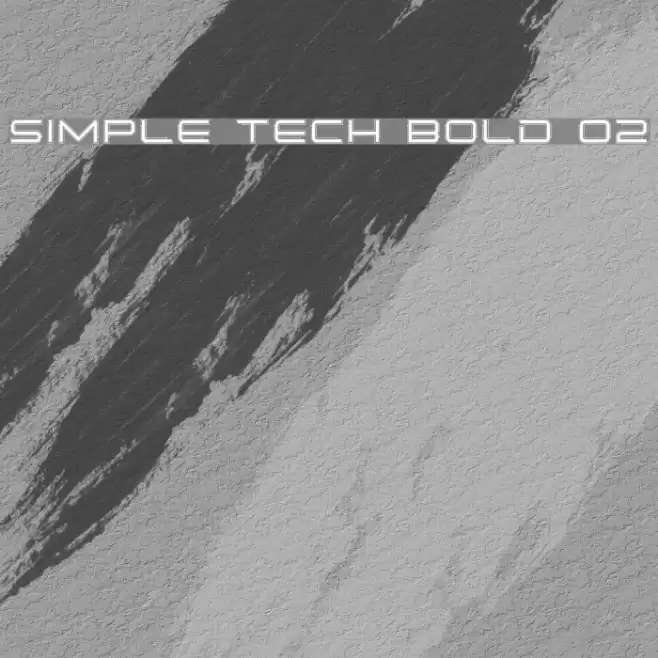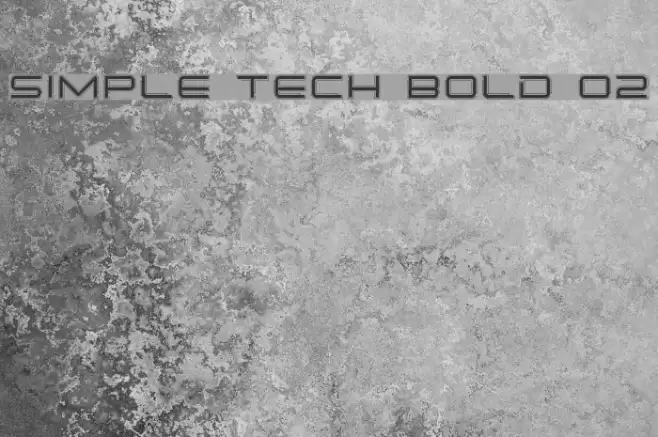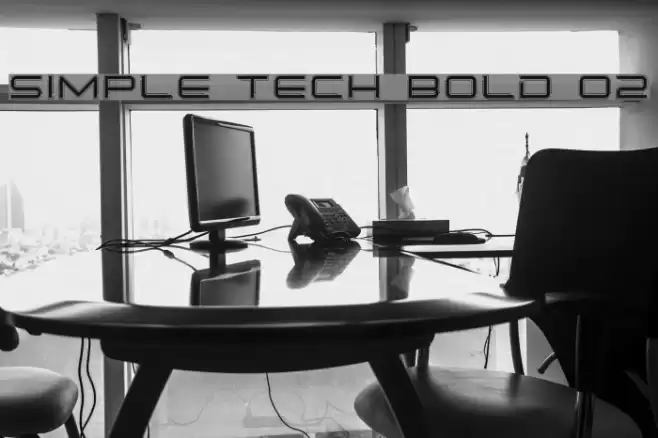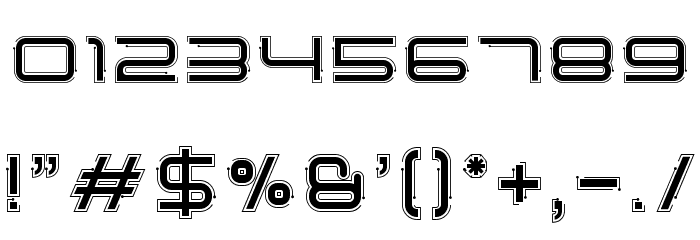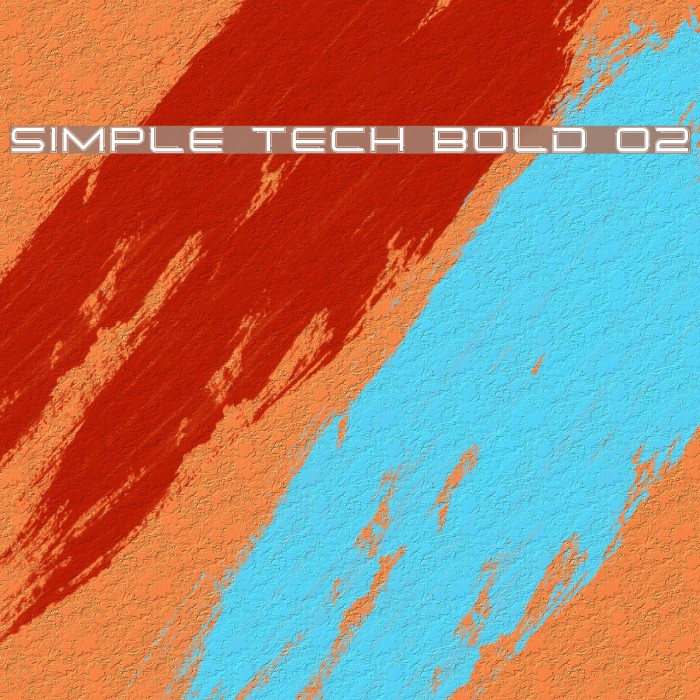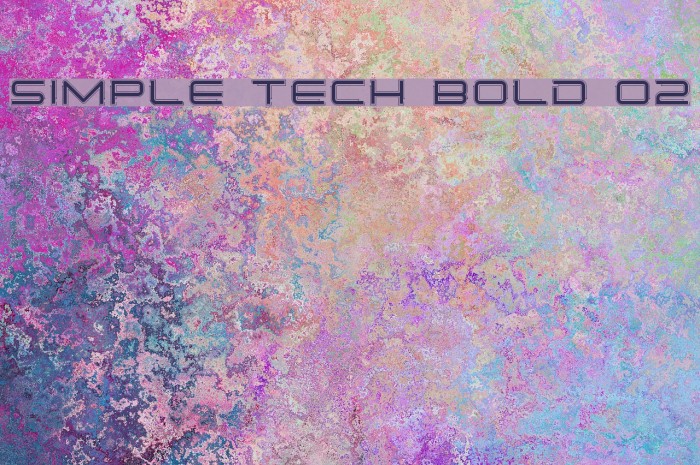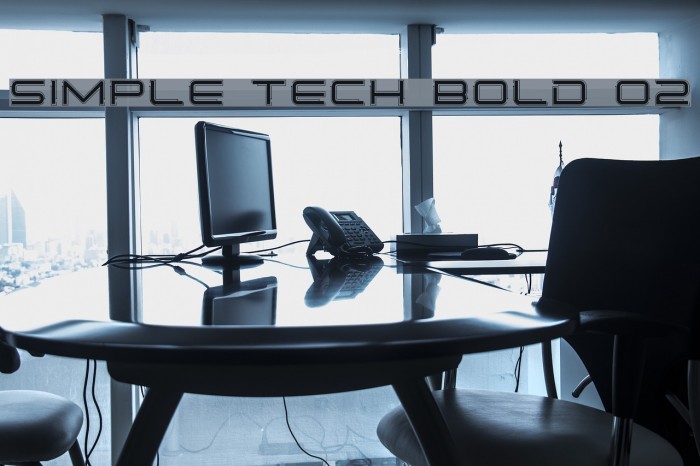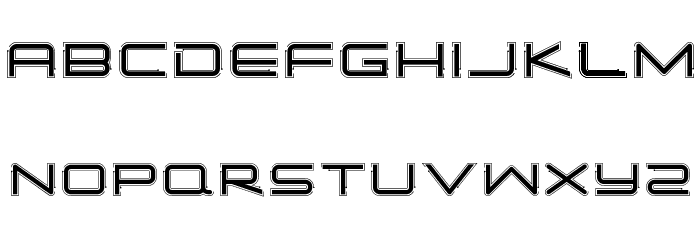
Simple Tech Bold 02 Font
Simple Tech Bold 02 Description
This font features a modern, tech-inspired design with a bold and geometric structure. The characters are outlined, creating a hollow effect that adds a sense of depth and dimension. The angular and straight lines give it a futuristic and digital feel, making it suitable for technology-related themes. The uppercase and lowercase letters maintain a consistent style, with uniform stroke widths and sharp corners. The numerals and special characters follow the same design principles, ensuring a cohesive look across all elements. The font's unique style makes it stand out, while its clarity ensures readability.
A bold, geometric, and tech-inspired font with outlined characters from Uncategorized fonts.
- Proposed Projects: Ideal for technology branding, digital media, video game titles, and futuristic posters.